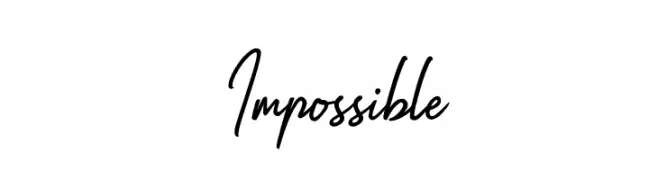
A modern, clean font with smooth curves and a balanced structure.
A bold, high-contrast serif font with a classic and authoritative style.
A bold, geometric font with a modern and structured design.
A flowing, cursive script font with elegant and sophisticated styling.
A dynamic, italicized font with a futuristic halftone effect and sleek, angular letters.
A classic serif font with elegant curves and a traditional feel.
A modern, elegant font with geometric and humanist elements.
A bold, modern font with clean lines and a sophisticated style.
A modern, elegant font with a clean and sophisticated design.
A classic serif font with elegant, elongated strokes and refined details.